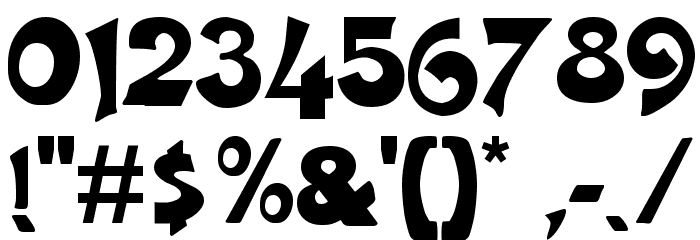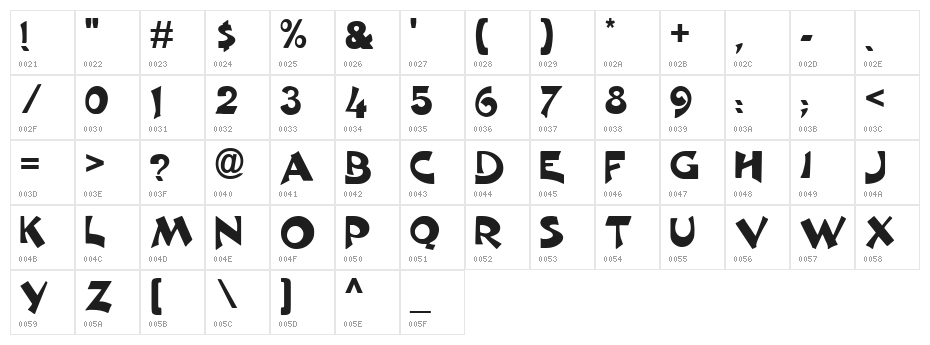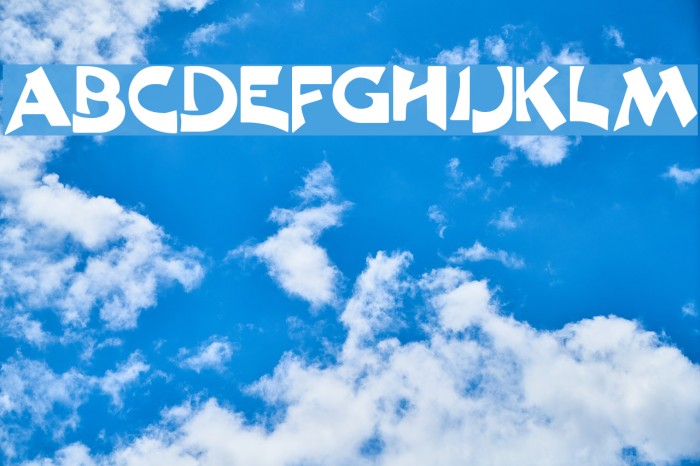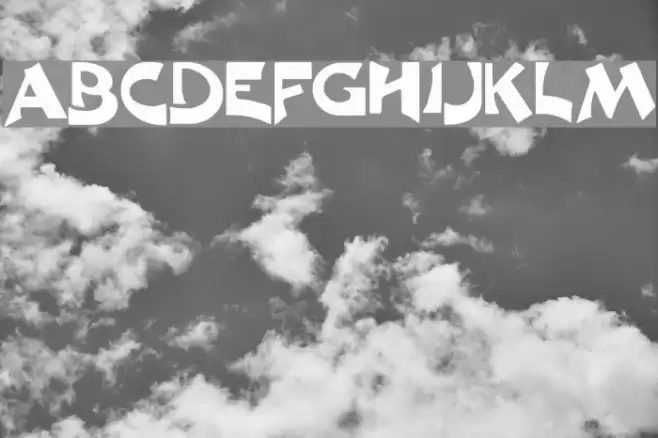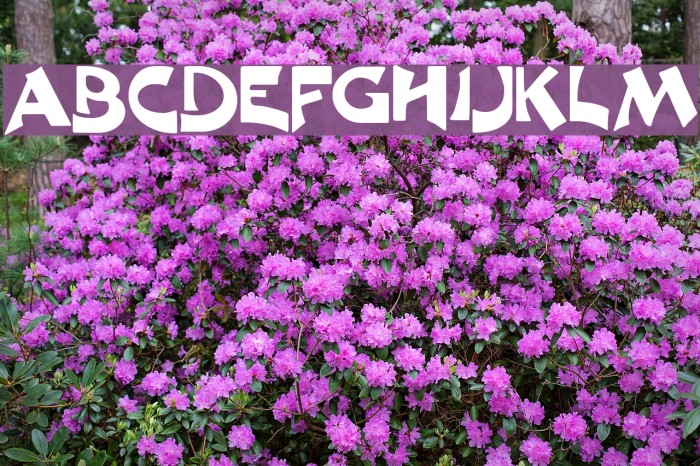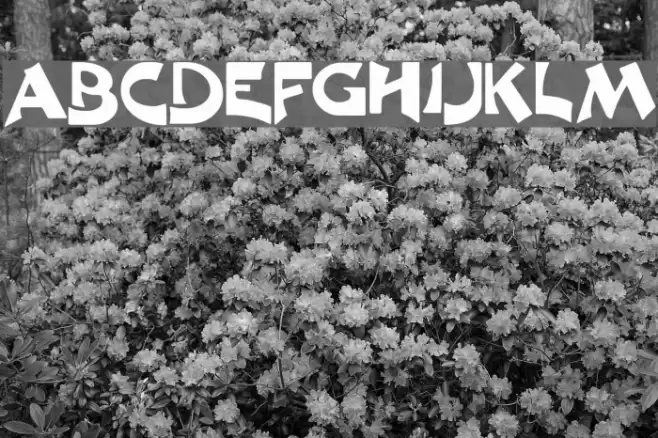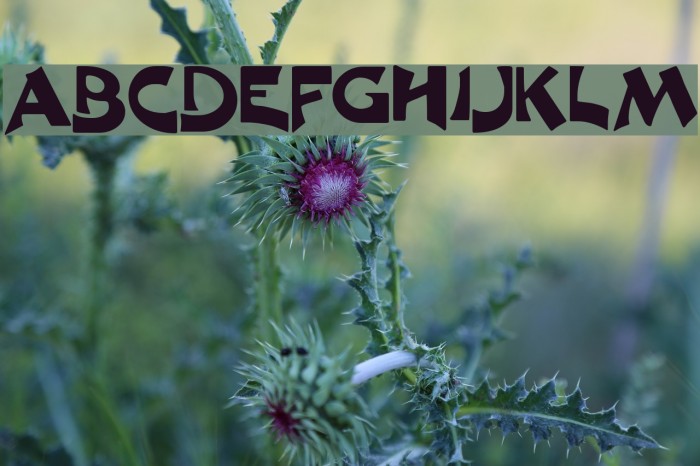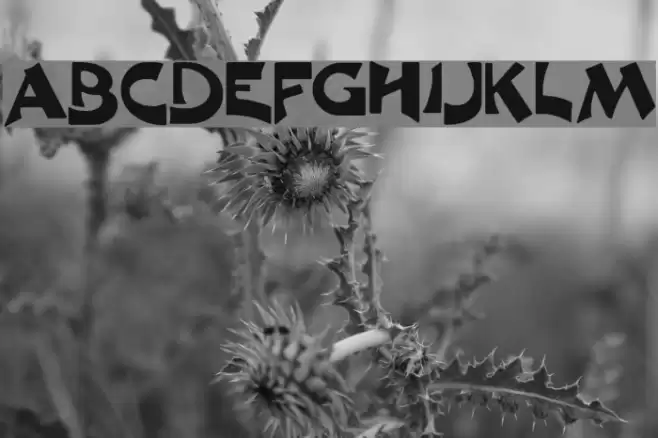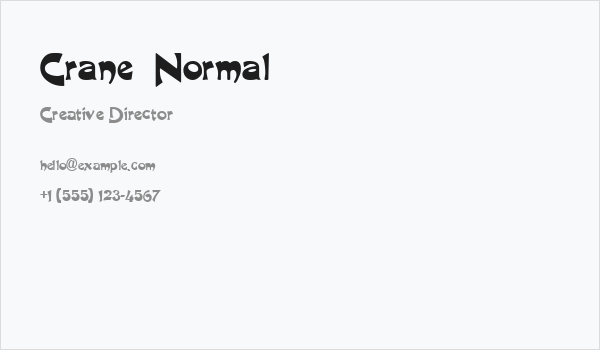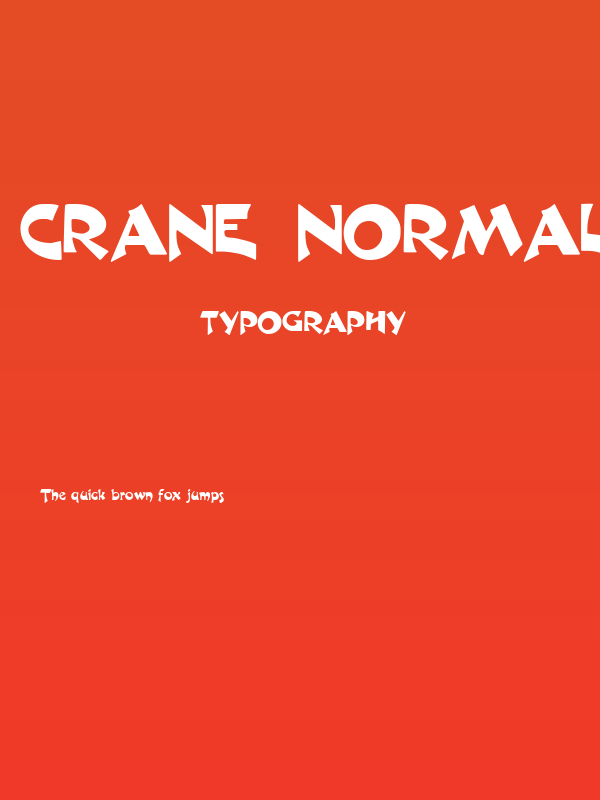
Crane Normal Font
Crane Normal Description
This font features a bold and dynamic style with a distinctively angular and geometric design. The characters exhibit a playful yet structured appearance, with sharp edges and varying stroke widths that create a sense of movement and energy. The uppercase letters are particularly striking, with their bold forms and unique shapes that make a strong visual impact. The lowercase letters maintain the same energetic style, providing a cohesive look across the typeface. Numbers and special characters are designed with the same attention to detail, ensuring consistency throughout. This font's unique style makes it suitable for projects that require a bold and eye-catching typeface.
| Proposed Projects | Ideal for posters, branding, headlines, and any design needing a bold statement. |